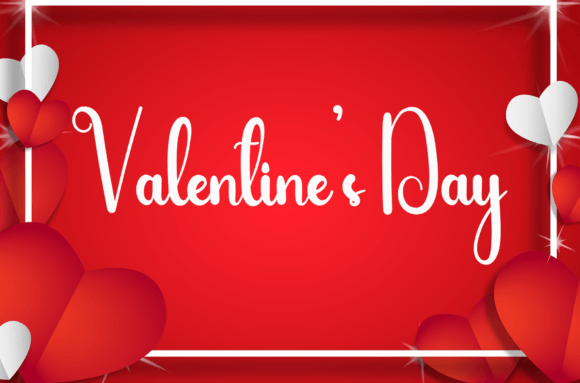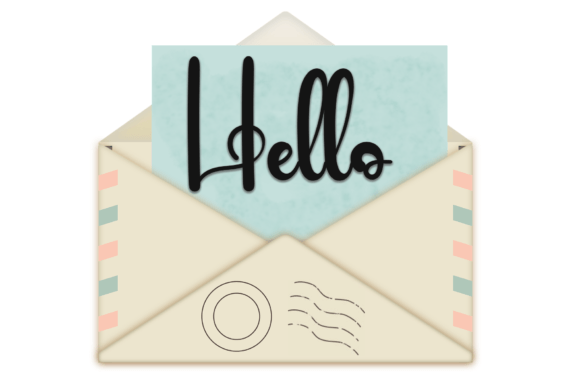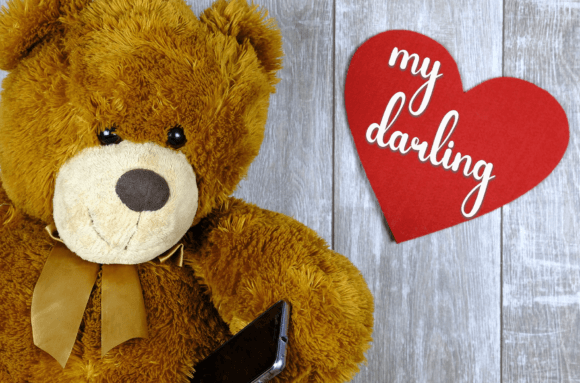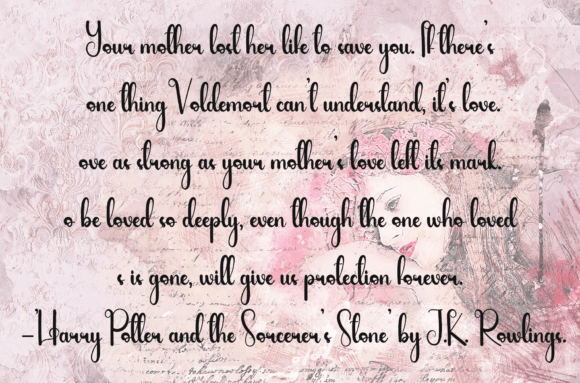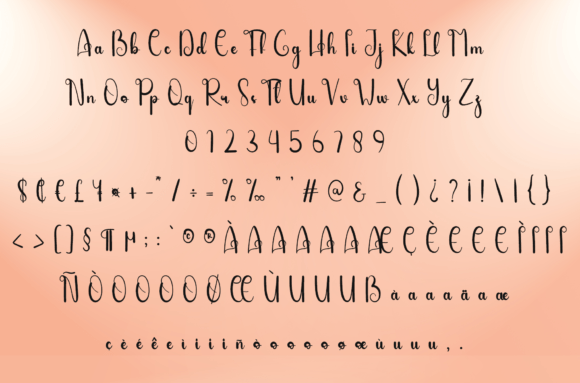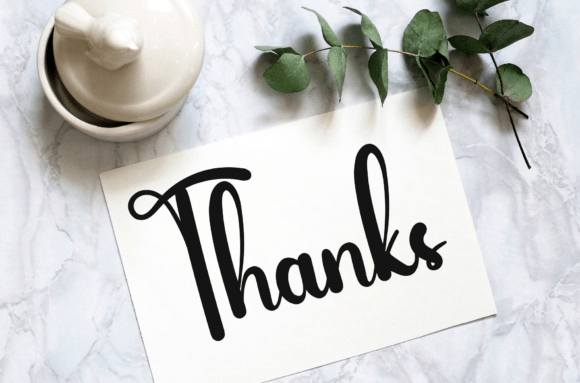
Introducing Handmade Style Font: The Perfect Companion for Designers and Crafters
In the world of typography, few fonts manage to convey the warmth and personality of handwriting. Among these, the Handmade Style Font stands out as a beacon of simplicity and friendliness. This beautifully crafted handwritten font is not just a typeface; it’s an invitation to bring a personal touch to any project. Whether you’re a designer looking for that perfect element to elevate your digital creations, a crafter aiming to add a personal touch to your handmade goods, or someone who loves creating personalized greeting cards, the Handmade Style Font is poised to become your new best friend.
The Versatility of Handmade Style Font
One of the most significant advantages of the Handmade Style Font is its incredible versatility. Its simple yet charming design makes it suitable for a wide range of applications. Here are a few ways you can use this font to bring your projects to life:
- Crafts: From DIY signs and banners to personalized gifts, the Handmade Style Font adds a touch of warmth and personality that mass-produced items simply can’t match.
- Digital Design: Use it in your social media graphics, website headers, or blog posts to give your digital presence a more approachable and human feel.
- Presentations: Make your presentations stand out with a font that communicates in a clear, yet friendly and engaging manner.
- Greeting Cards: Create personalized and heartfelt greeting cards for any occasion. The Handmade Style Font ensures that your message comes across as sincere and thoughtful.
Why Choose Handmade Style Font?
There are several reasons why the Handmade Style Font should become a staple in your design toolkit:
- Easy to Read: Despite its handmade feel, the font is surprisingly legible, making it perfect for both digital and print applications.
- Highly Versatile: It works well in a variety of contexts, from formal to informal, and can be used for both headings and body text.
- Unique Personality: In a sea of generic fonts, the Handmade Style Font brings a unique character that can help your projects stand out.
- User-Friendly: Designed to be simple and friendly, it helps you connect with your audience on a more personal level.
Tips for Using Handmade Style Font
To make the most of the Handmade Style Font, consider the following tips:
- Mix and Match: Combine it with other fonts for a layered look, or use it as a standalone font for a cohesive appearance.
- Play with Colors: This font looks great in a variety of colors, so don’t be afraid to experiment and find the perfect hue for your project.
- Emphasize Emotions: Use varying font sizes and weights to emphasize certain words or phrases and convey your message more effectively.
The Handmade Style Font is more than just a typeface; it’s a tool that allows you to infuse your projects with a sense of personality and warmth. Its simplicity, friendliness, and versatility make it an invaluable resource for designers, crafters, and anyone looking to add a personal touch to their work. By incorporating the Handmade Style Font into your projects, you’re not just choosing a font; you’re choosing to communicate in a way that’s approachable, sincere, and engaging. So, why wait? Explore the possibilities with the Handmade Style Font today and discover how it can transform your designs and crafts into something truly special.